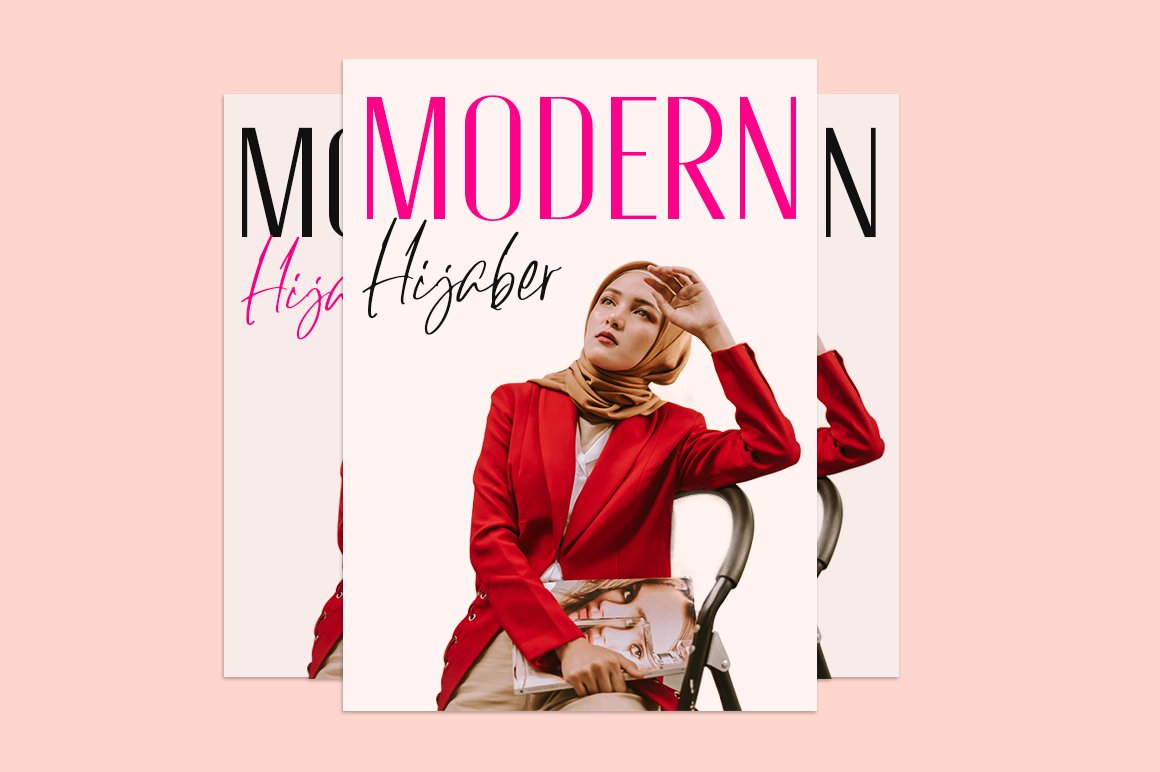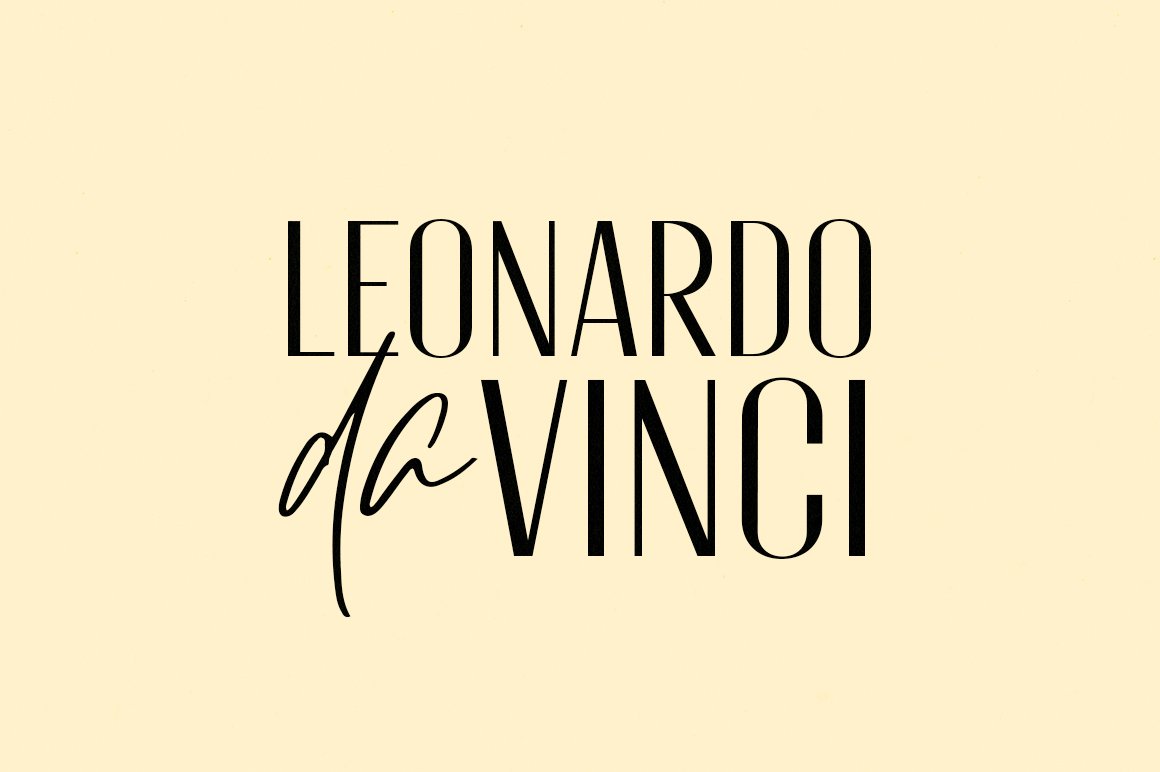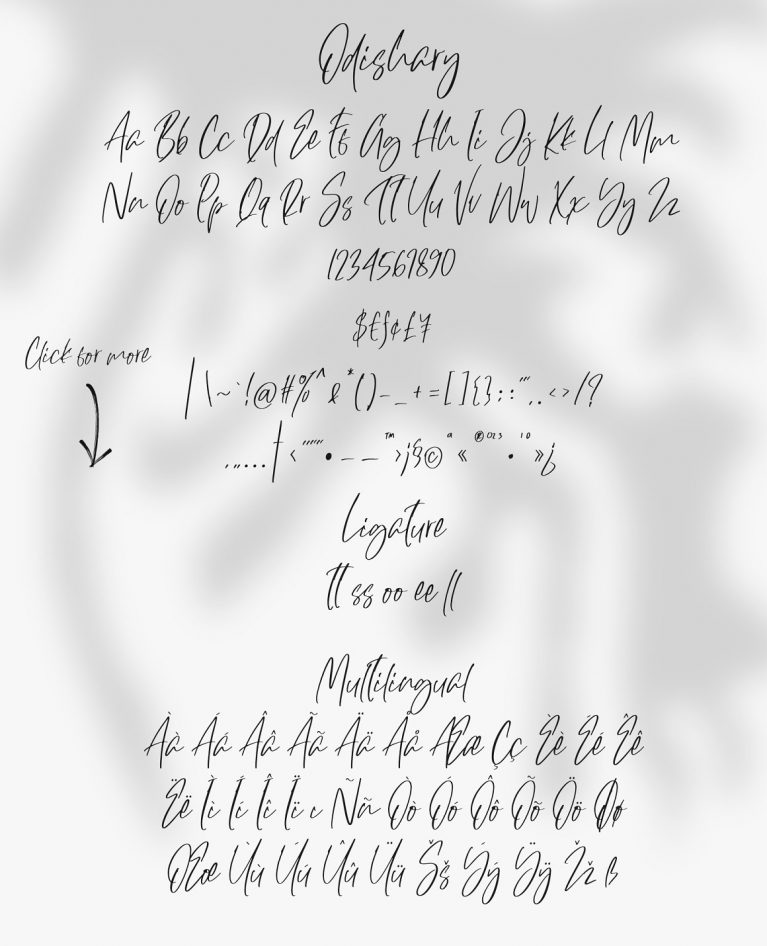
Upgrade your class with Odishary and Modric! An elegant paired fonts between Handwritten Font and stylish condensed Sans Serif. Always believe in Leonardo da Vinci:
“Simplicity is the ultimate form of sophistication“
And believe me, Odishary and Modric have that form! This is perfect combination that will give your project a luxurious feels.
Odishary – A casual and classy handwritten script font with ligature, also includes multilingual characters.
Modric – All caps stylish condensed sans serif that very suitable for fashion and beauty projects. Multilingual characters included.